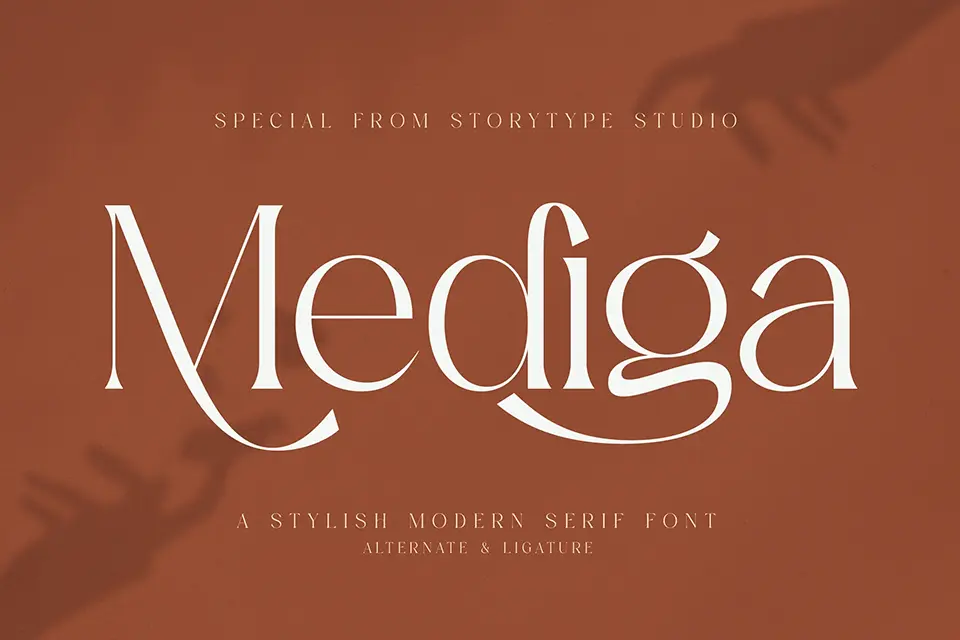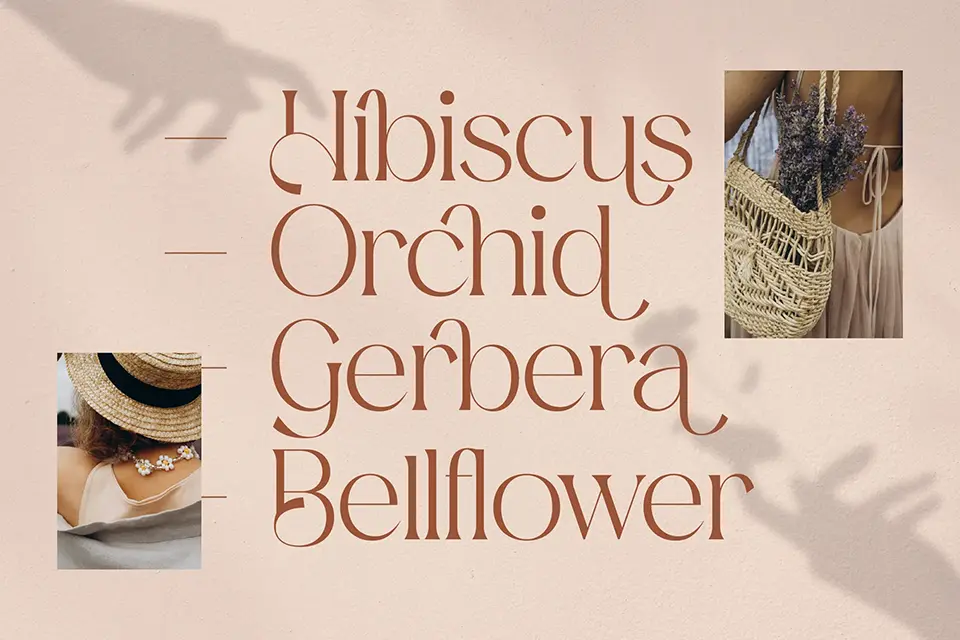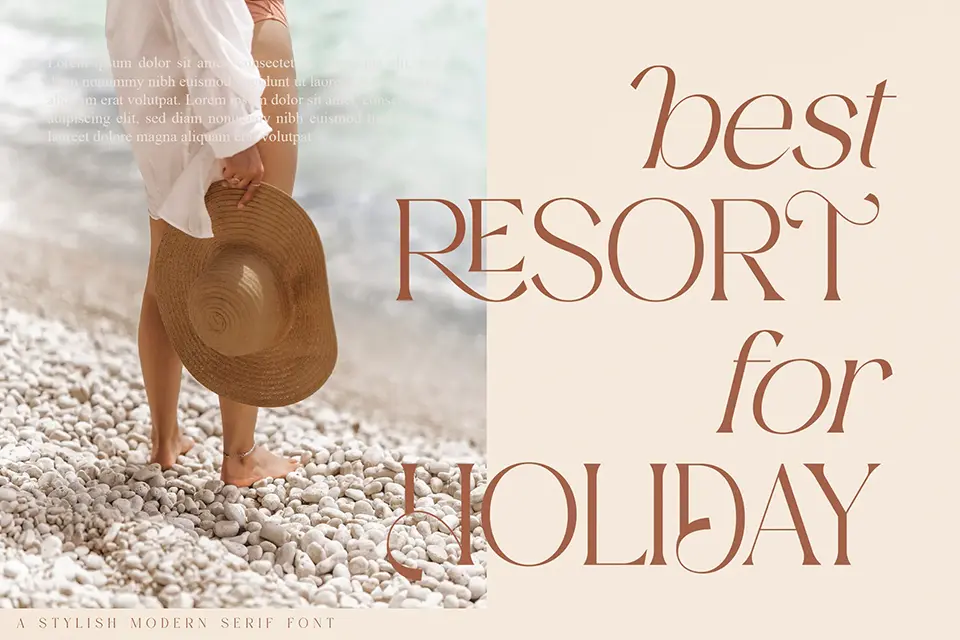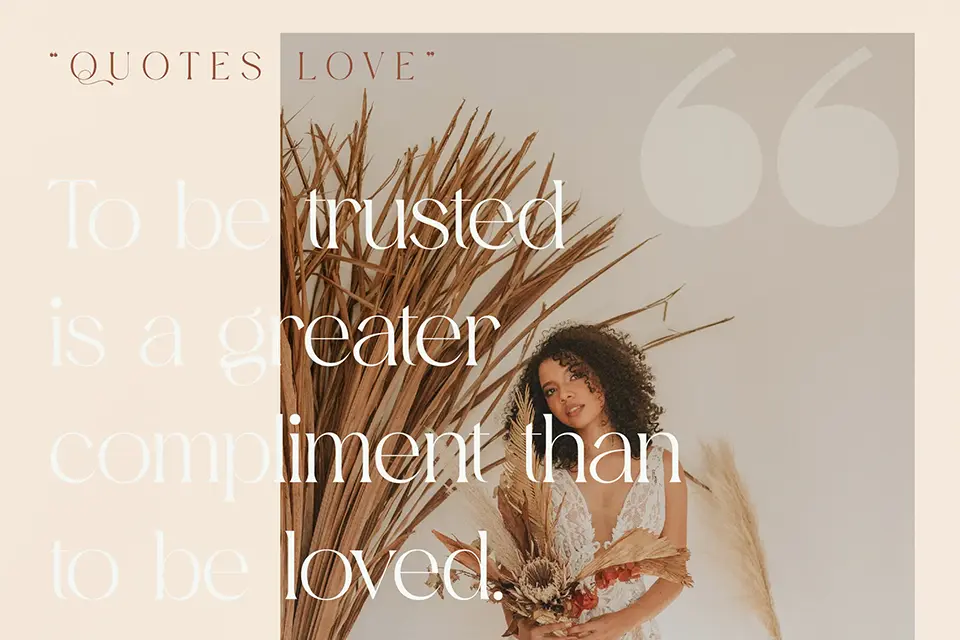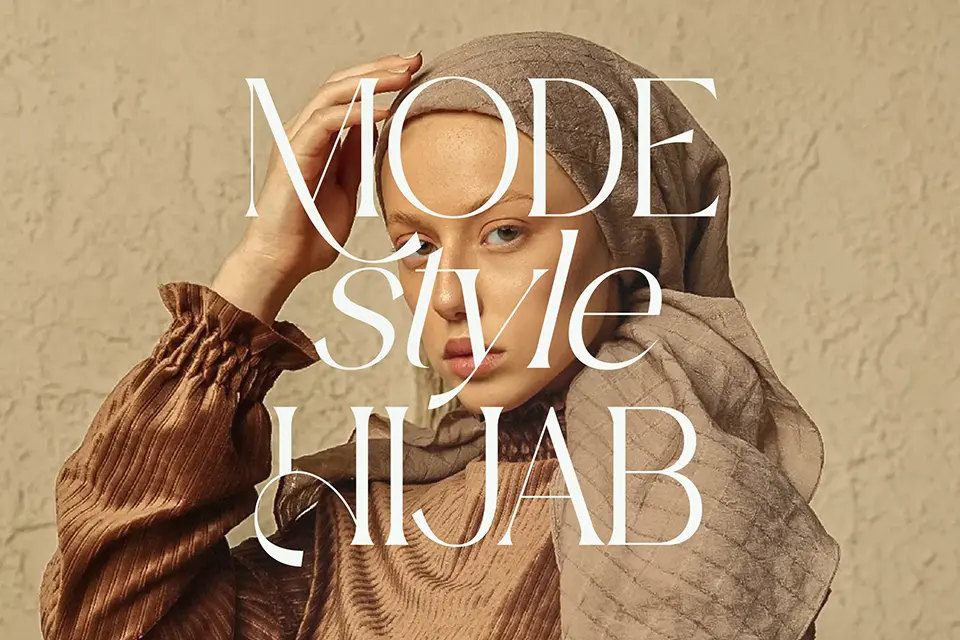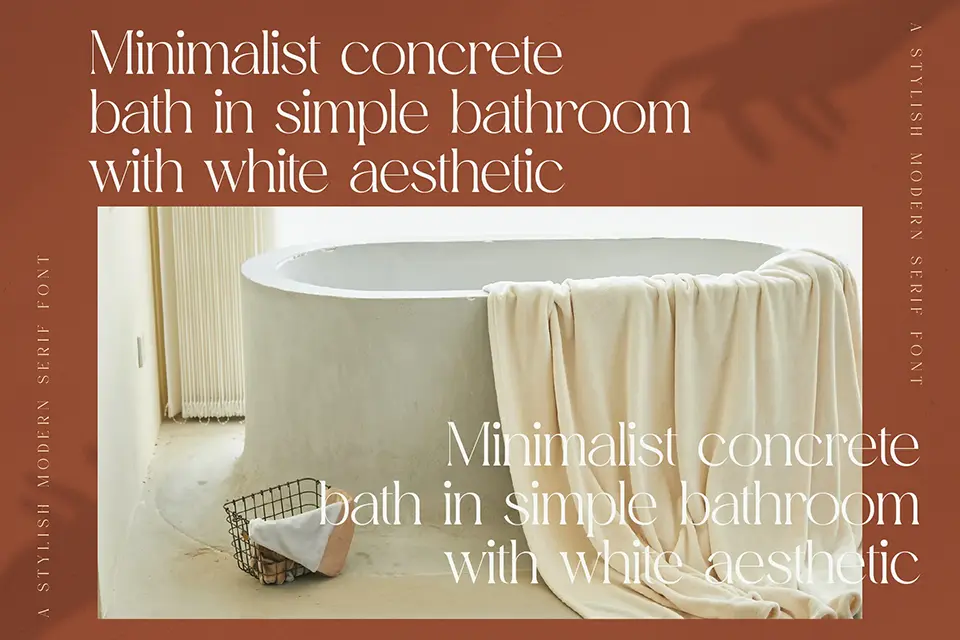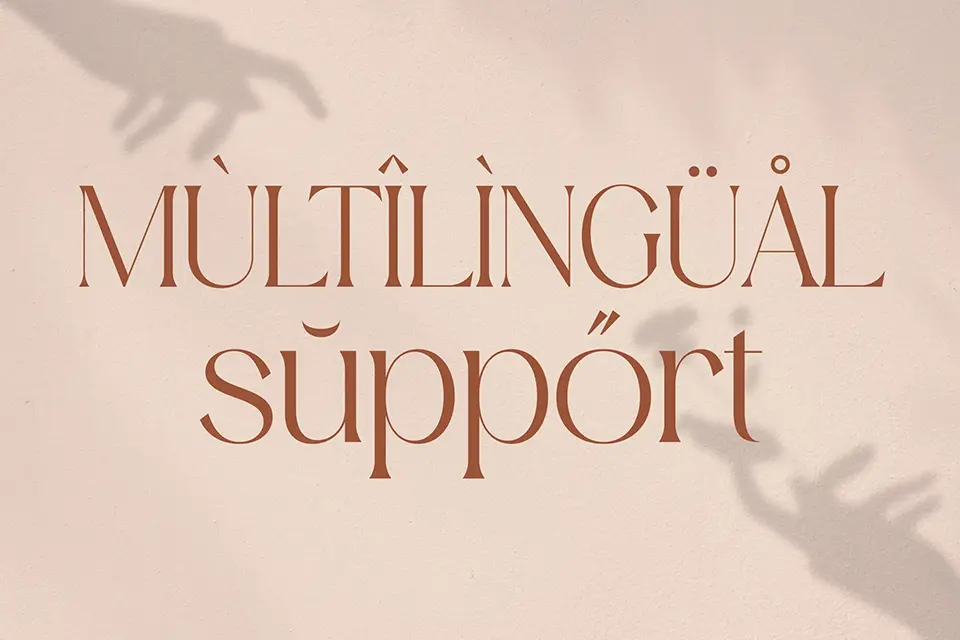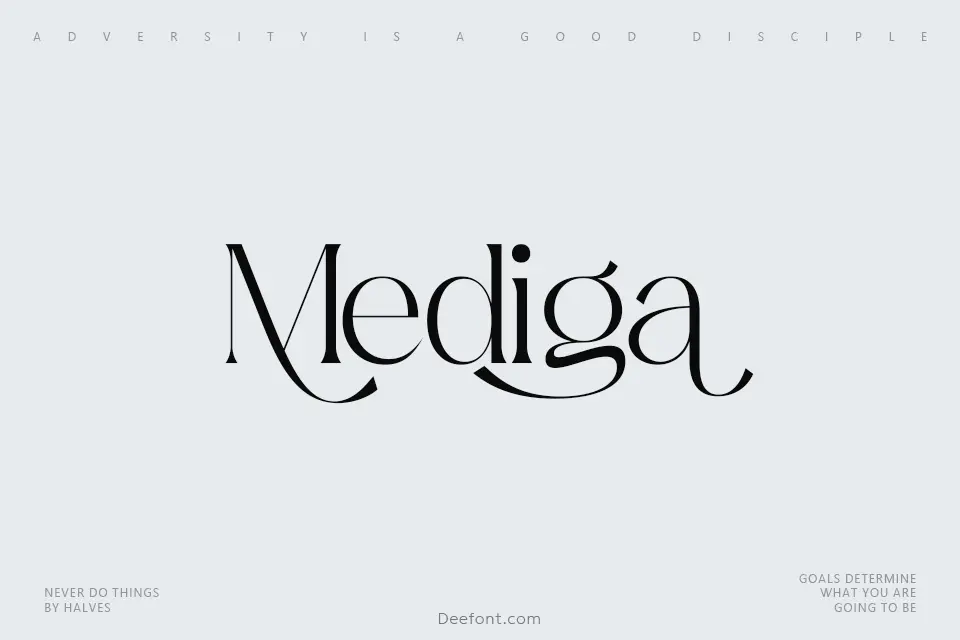
Mediga Font
Mediga Font is an elegant serif typeface that masterfully blends modern aesthetics with classic design elements. This sophisticated font features unique styling that makes it particularly well-suited for luxury branding, elegant logos, book titles, and movie title designs. Its semi-light weight and distinctive character set create a perfect balance between contemporary appeal and timeless sophistication. The versatile nature of Mediga makes it an excellent choice for fashion brands, magazine layouts, and high-end applications where a touch of refinement is desired. The font’s carefully crafted details and balanced proportions ensure readability while maintaining its luxurious appeal.